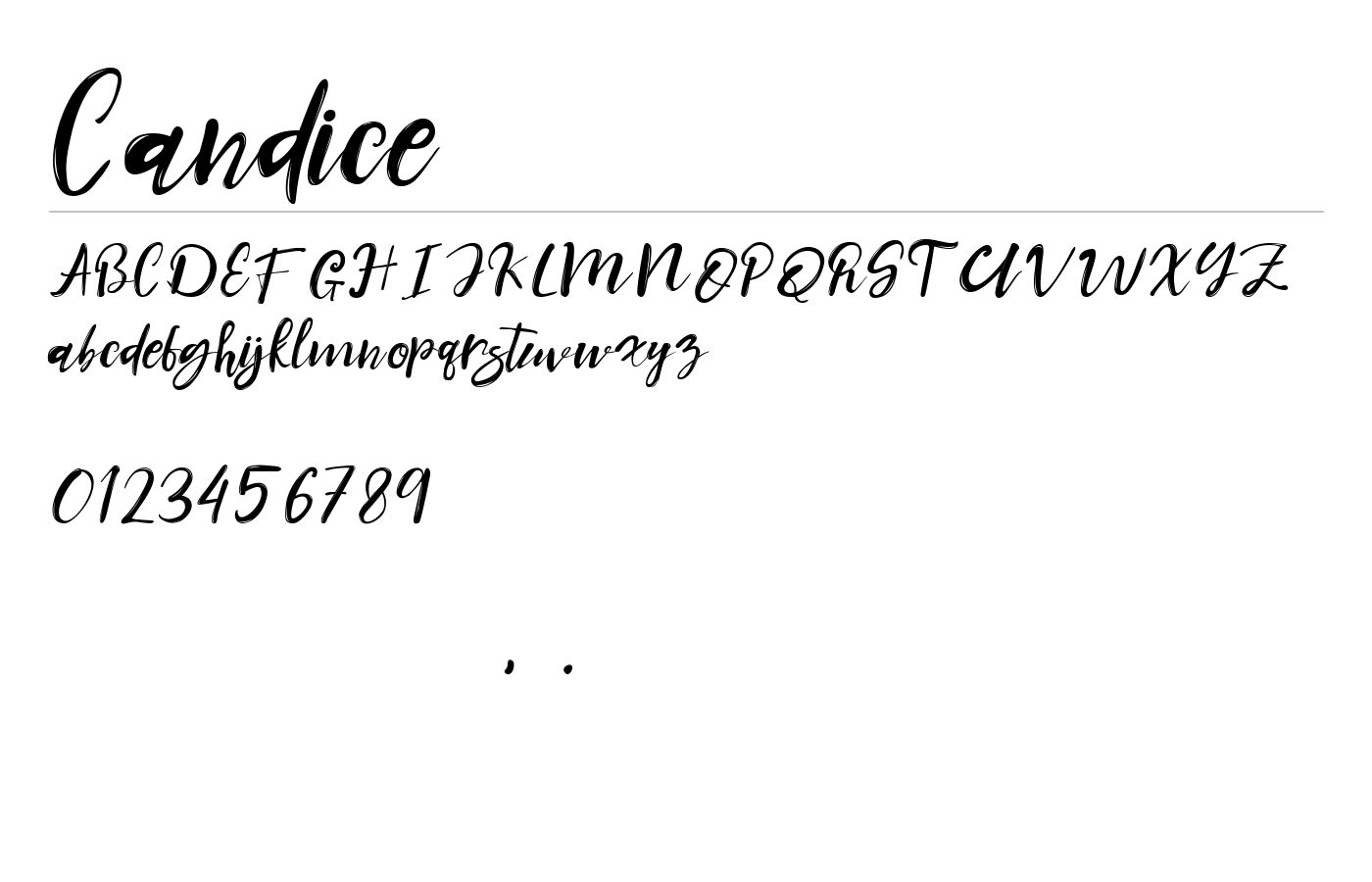
Candice is a stylish script font with a modern calligraphic feel, featuring smooth, fluid strokes and a moderate contrast between thick and thin lines. Its elegant and slightly casual character makes it perfect for branding, invitations, and creative projects that seek a personal yet polished touch. This font shines in headlines and logos where a distinctive, artistic flair is desired.
Candice Font
About Candice Font
| Designer | Ferdiansyah |